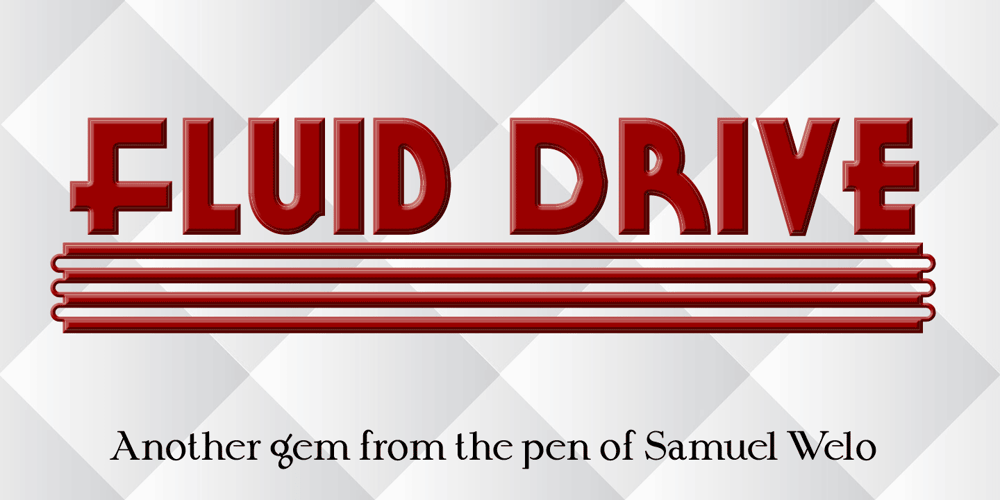
Fluid Drive NF
Fluid Drive NF font
Fluid Drive NF Font Family was designed by published by Nick’s Fonts. Fluid Drive NF contains 1 styles and family package options. A playful Art Deco face from master penman Samuel Welo is combined with design elements used in 1930s signage to create this architectural face. End caps are created with {brackets} and spaces with the design elements are _underscores. Both versions of this font support the Latin 1252, Central European 1250, Turkish 1254 and Baltic 1257 codepages.